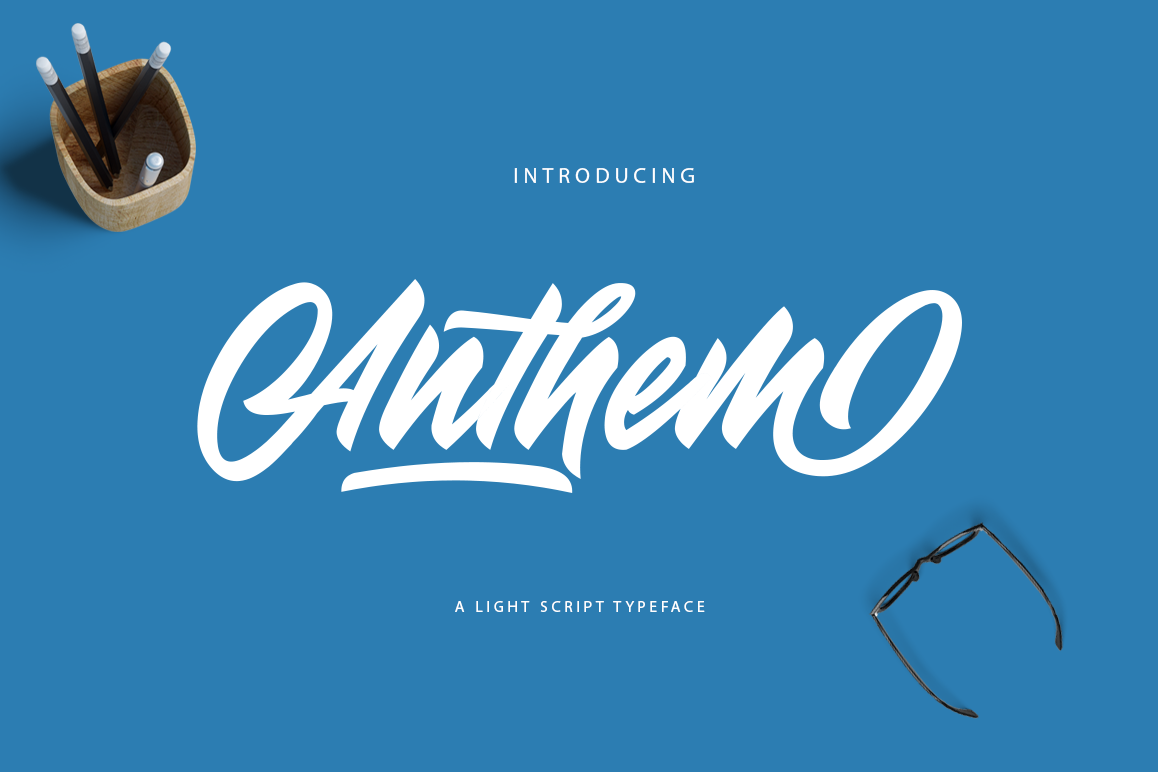
Anthem Typeface
Anthem a typeface that we made to give you ease in accomplishing the work of typography such as logotype, poster, headline, and other creative projects.